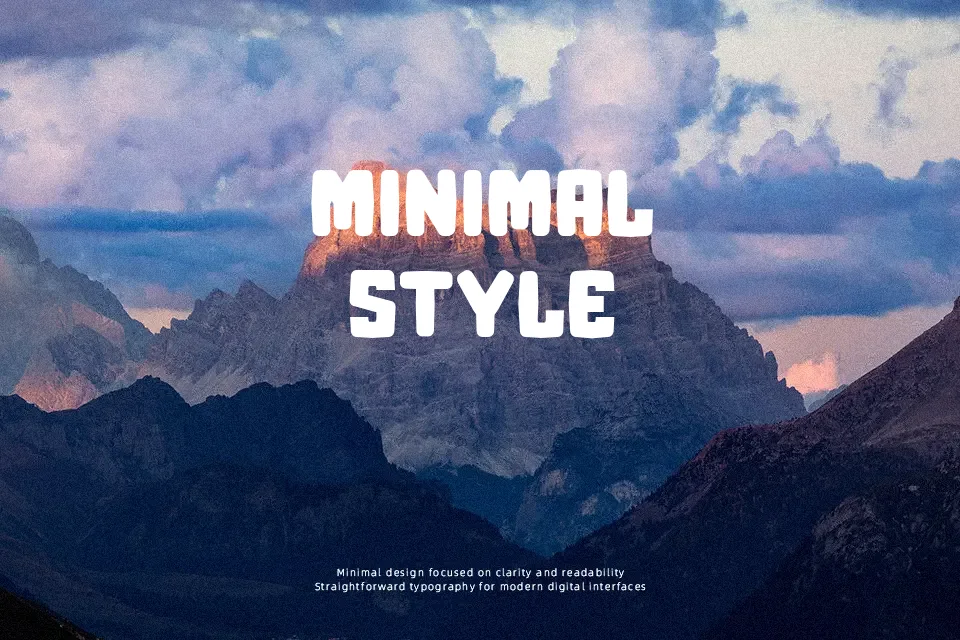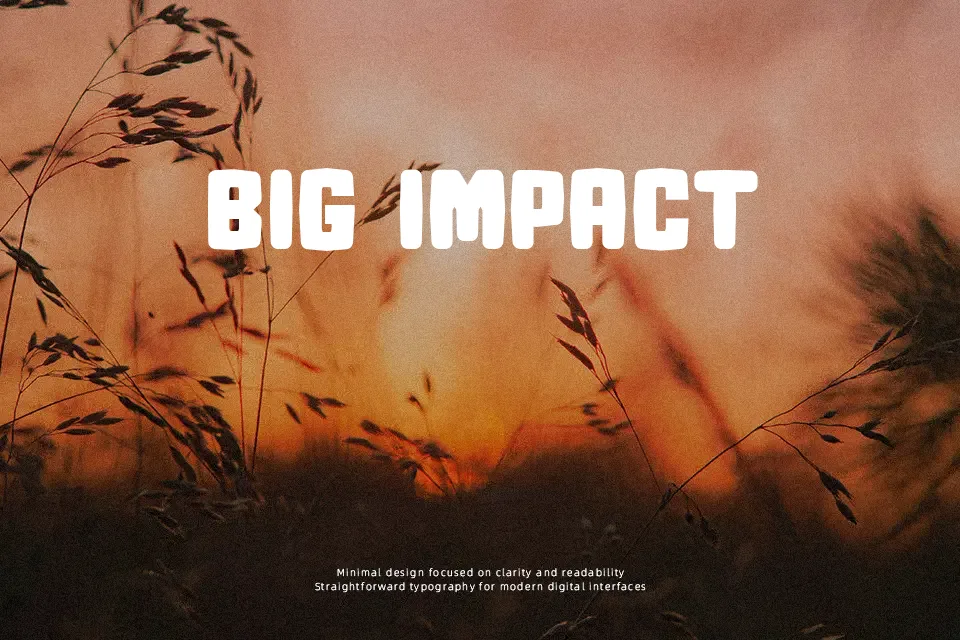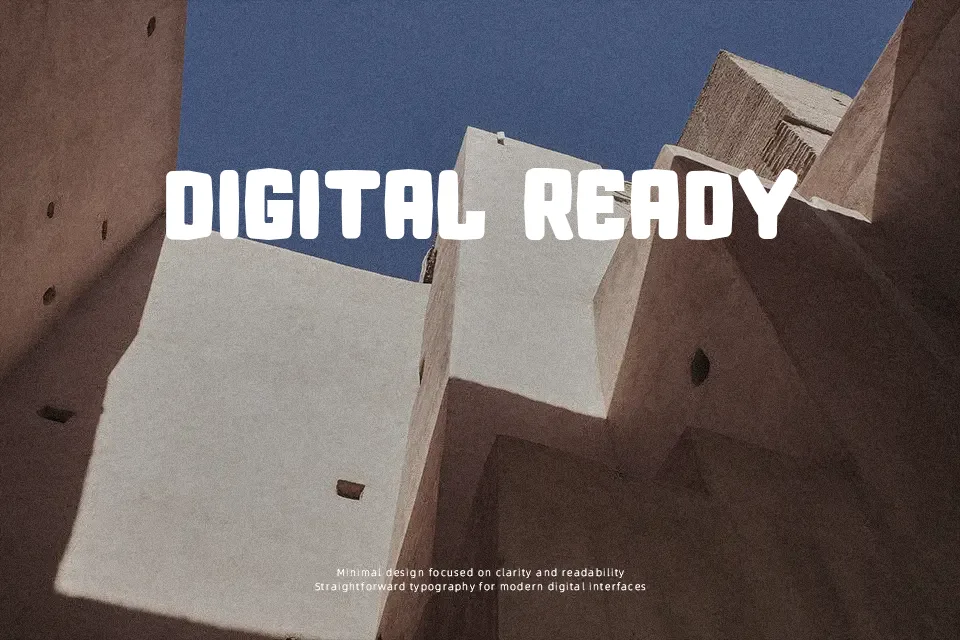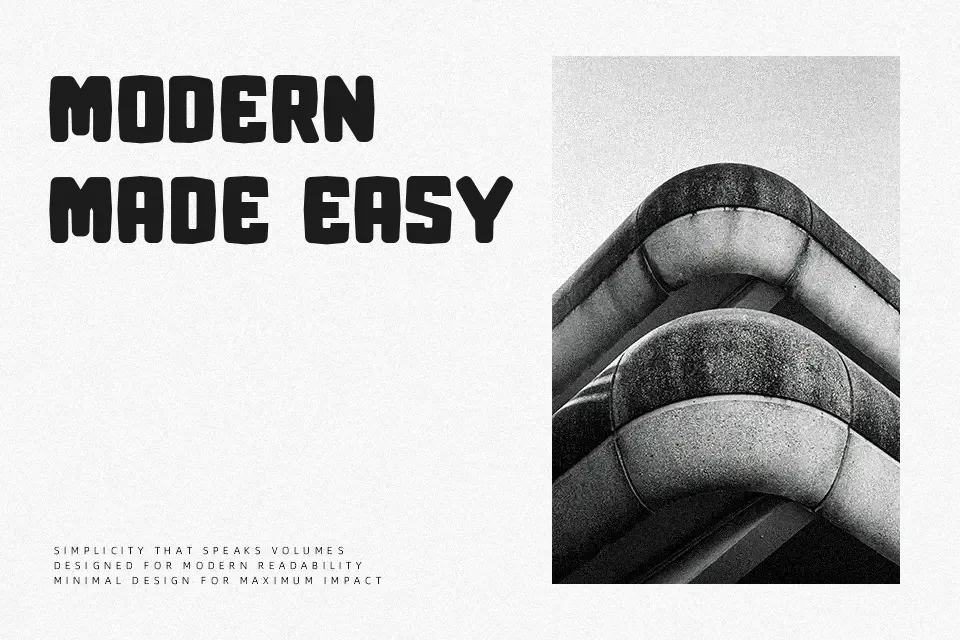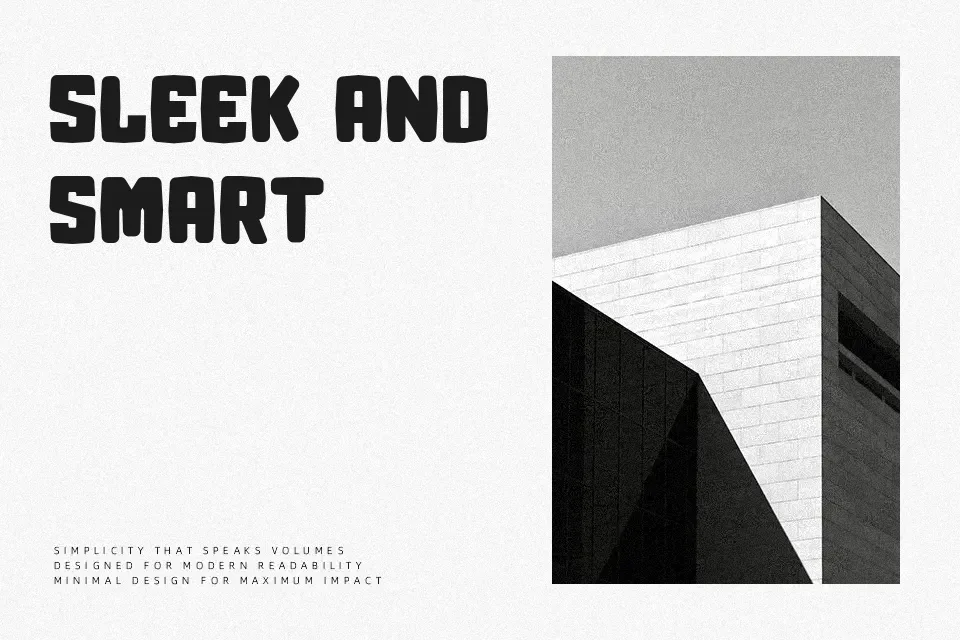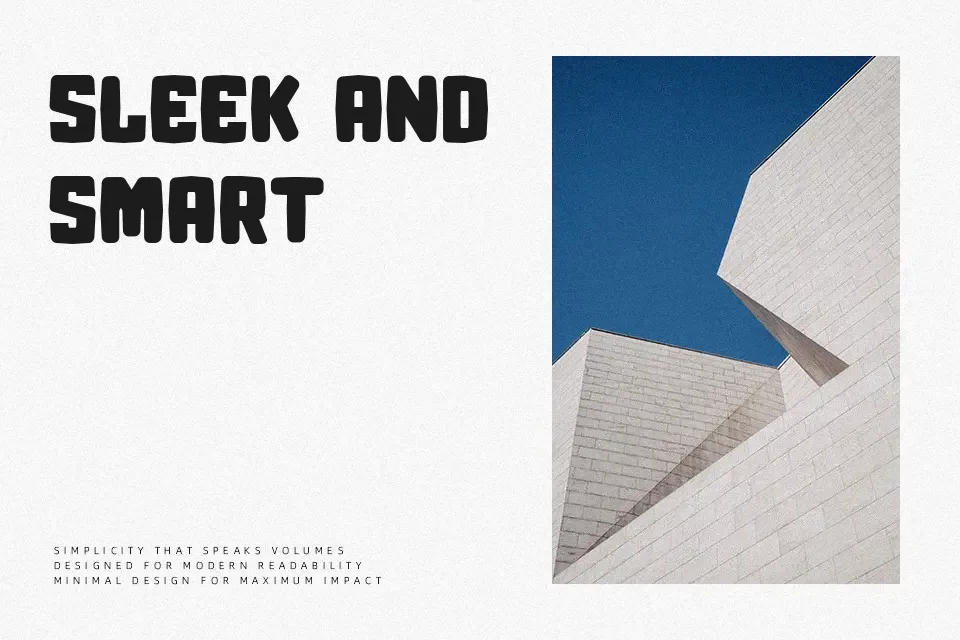
CF Revenge Font
CF Revenge Font demonstrates its greatest structural strength when rendered at large display scales where its solid contours and dense weight can command attention. The letterforms feature thick strokes, minimal contrast, and compact proportions that create an assertive rhythm across short phrases. Generous stroke thickness maintains solid legibility from a distance, making the design well suited for esports branding, combat sports signage, and bold title sequences. However, the compressed internal counters and heavy mass make the typeface poorly suited for multi-line body copy or small interface labels, where individual character shapes quickly lose definition. In headline environments, the deliberate weight distribution provides remarkable visual stability.
Best For: esports branding, action movie titles, combat sports posters, gaming merchandise
Not Ideal For: long paragraph text, mobile user interface copy, editorial body text, technical documentation
Perfect for film, gaming, and headline, with a bold and decorative style.